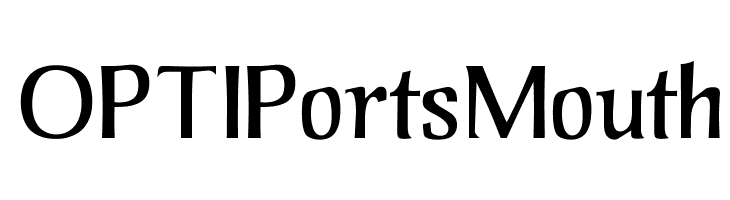
An elegant and classic font with bold uppercase and dynamic lowercase letters.
A classic serif font with high contrast and a compressed, elegant style.
A classic serif font with elegant strokes and a traditional, timeless appeal.
A classic serif font with a modern twist, offering elegance and readability.
A bold, high-contrast serif font with a modern yet classic appeal.
A bold, high-contrast serif font with elongated characters and sharp serifs.
A bold serif font with a modern flair and elegant curves.